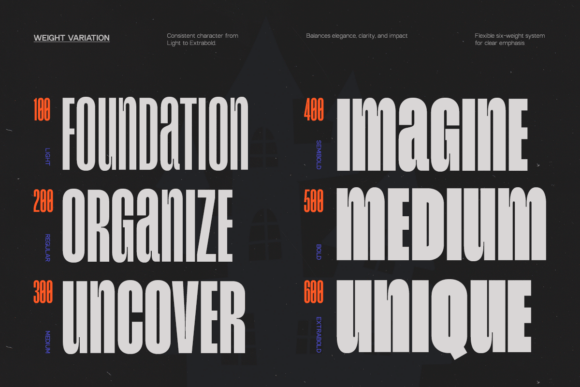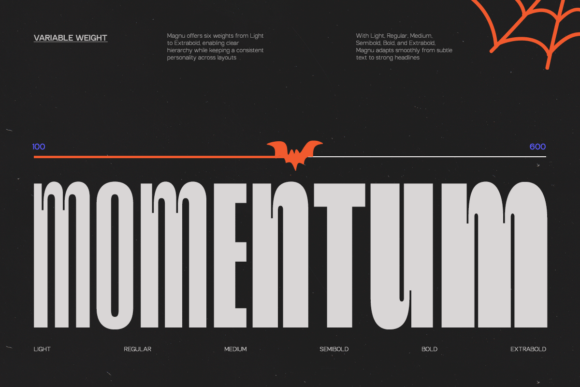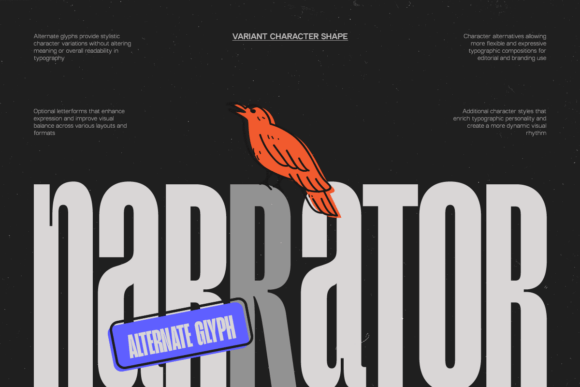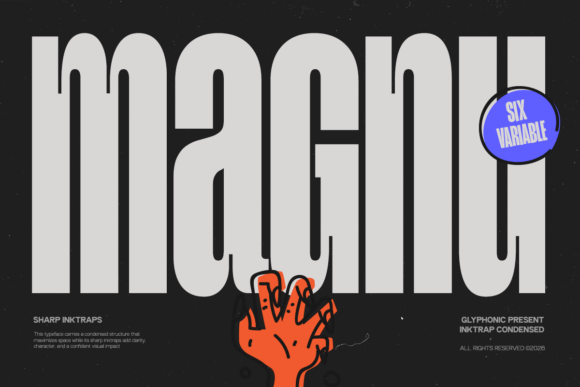
Introduction to Magnu Font
Make a monumental impact with Magnu, a condensed display typeface designed for maximum spatial efficiency.
Magnu is defined by its ultra-tight tracking and exaggerated, sharp inktraps that add an aggressive clarity to every character This font is a β€œSix Variable” powerhouse, offering a confident visual weight that feels rooted in modern industrial design and brutalist architecture.
Key Features of Magnu Font
Why Choose Magnu Font?
Magnu Font offers exceptional quality and versatility, making it a valuable addition to your design toolkit. Whether you’re creating for personal projects or commercial use, Magnu Font delivers professional results.